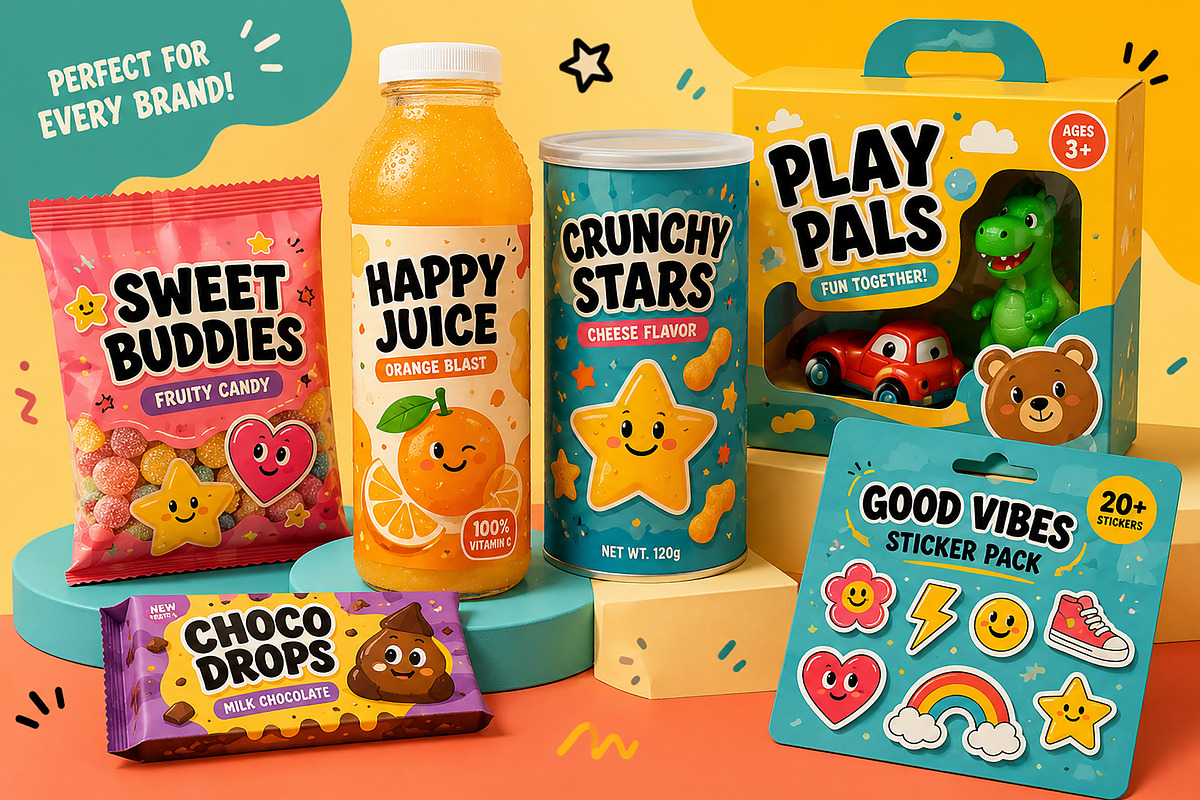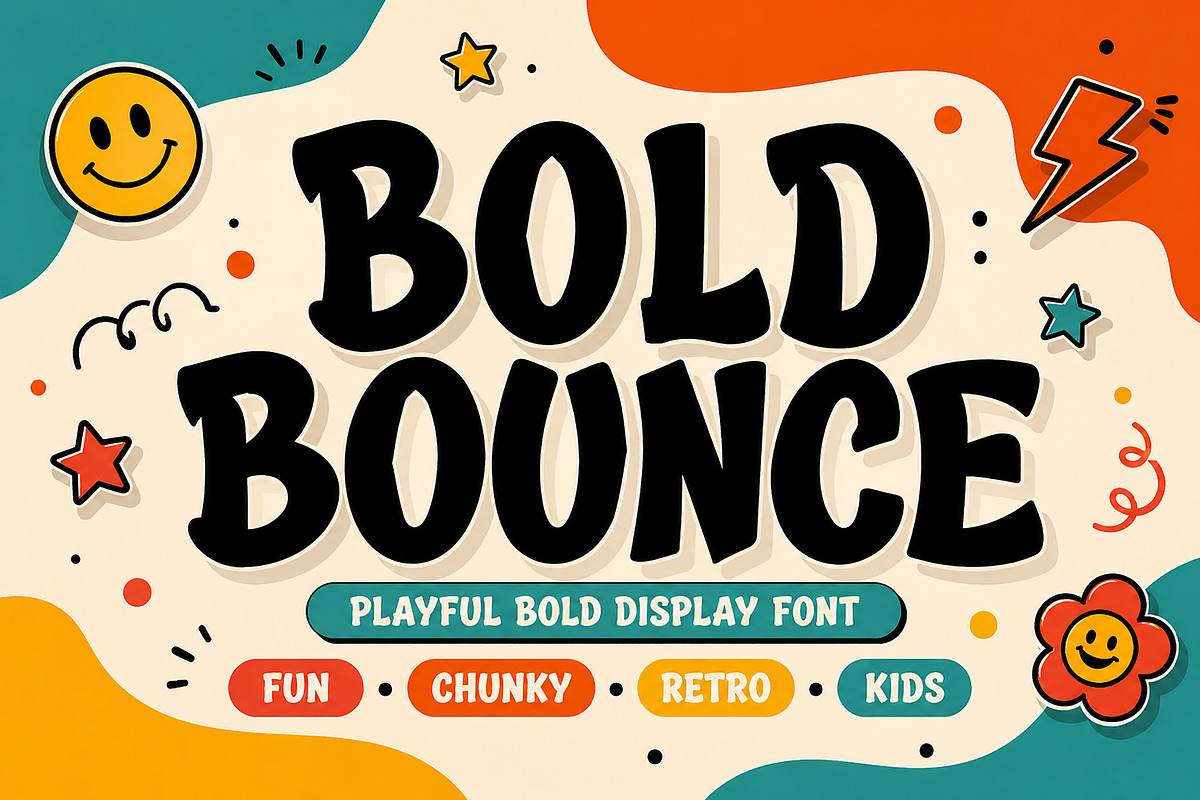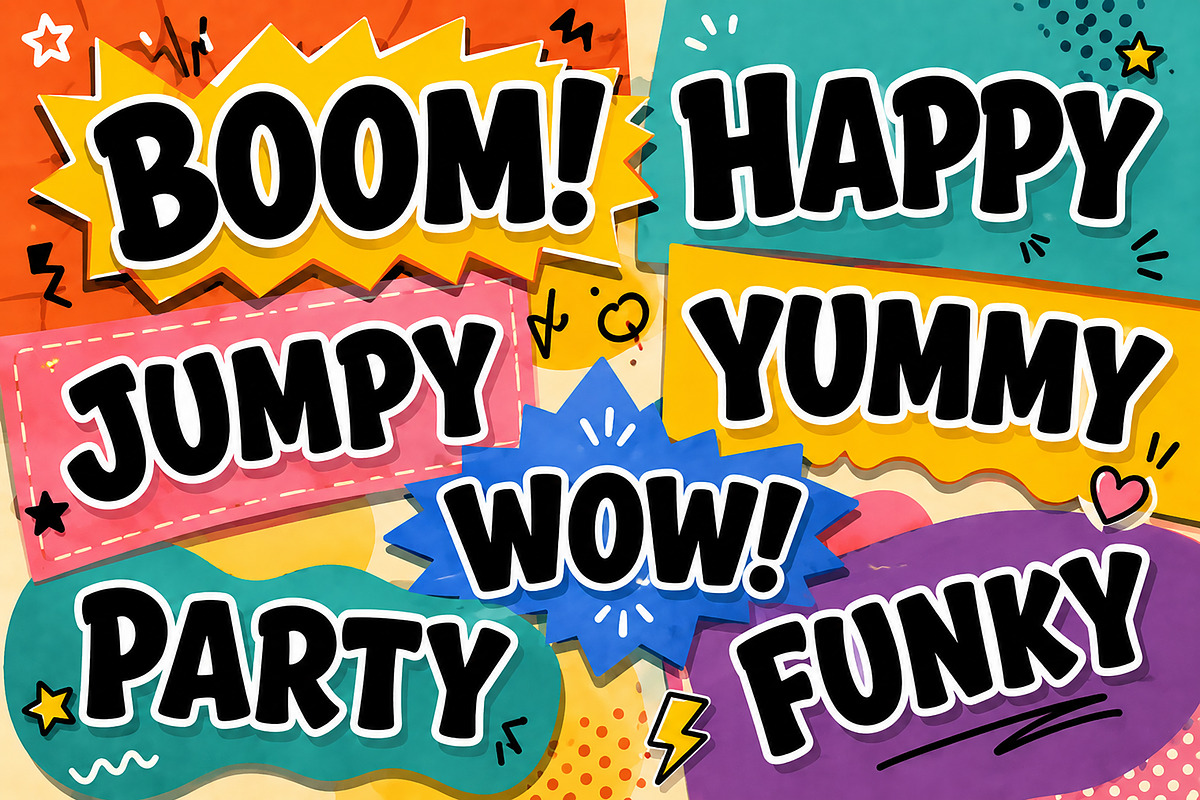
Bold Bounce
Bold Bounce is a playful bold display font with chunky letterforms, retro energy, and a fun handmade personality. Designed to bring joy and strong visual impact, this font is perfect for kids branding, toy packaging, posters, book covers, social media graphics, playful logos, birthday invitations, stickers, and cheerful merchandise.
With its thick curves, soft edges, and lively vintage-inspired style, Bold Bounce creates eye-catching typography that feels fun, friendly, and full of character. Whether you’re designing for children’s products, playful branding, or bold retro aesthetics, this font adds instant charm and energy.
• Kids branding
• Toy packaging
• Cartoon logos
• Birthday invitations
• Posters & flyers
• T-shirt designs
• Sticker packs
• Book covers
• Social media posts
• Fun product packaging
• Uppercase letters
• Lowercase letters
• Numbers
• Punctuation
Bring your creative ideas to life with Bold Bounce — the perfect font for fun, chunky, and happy designs!